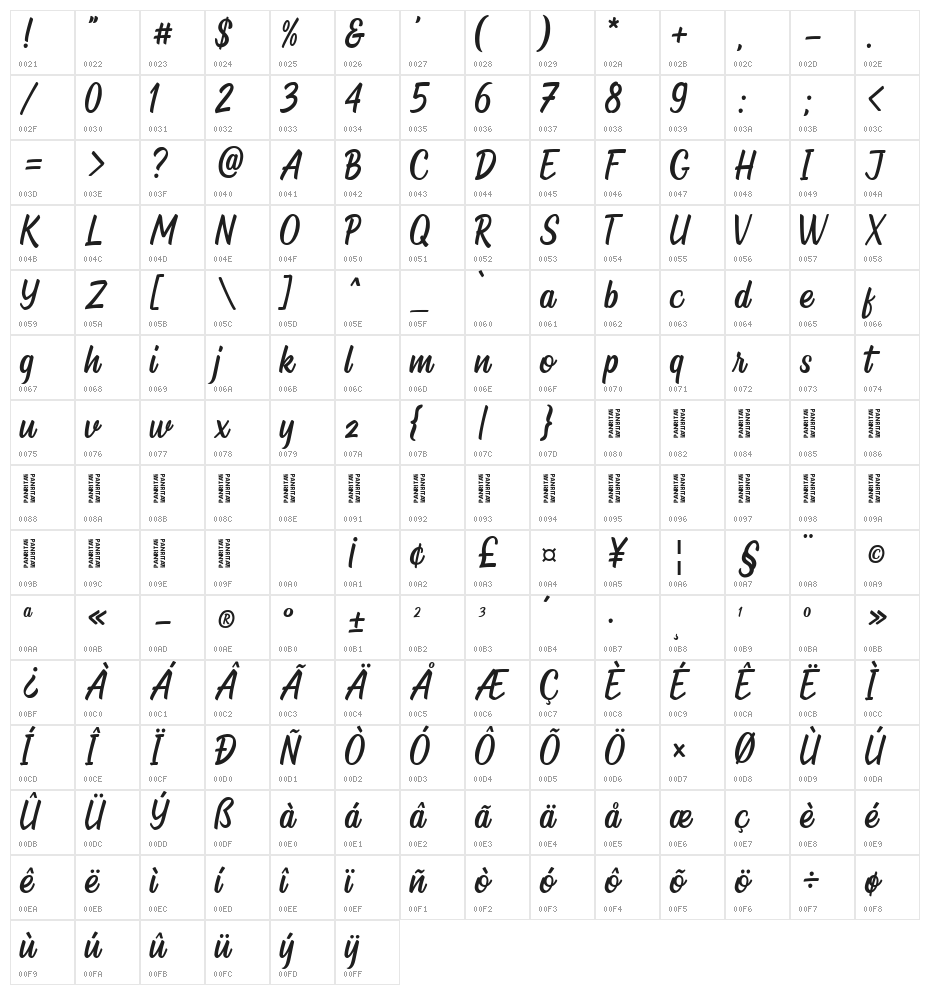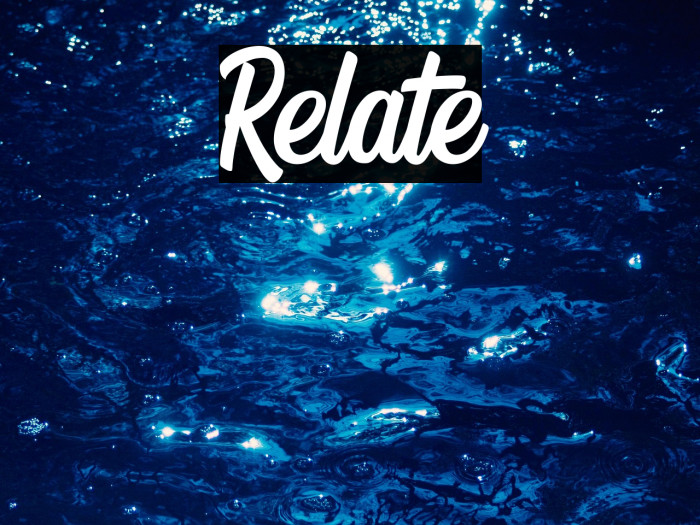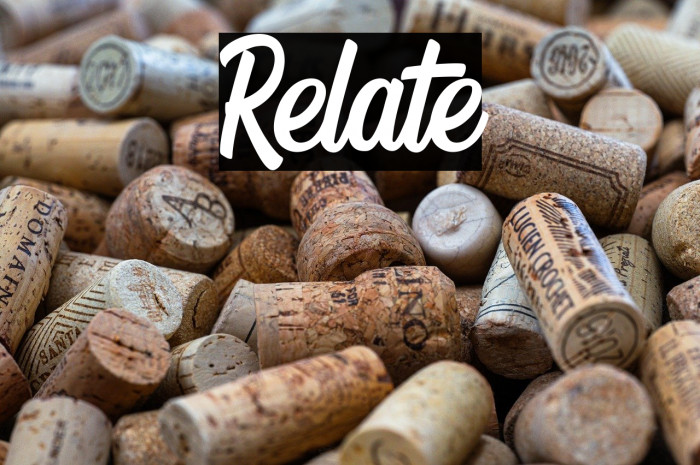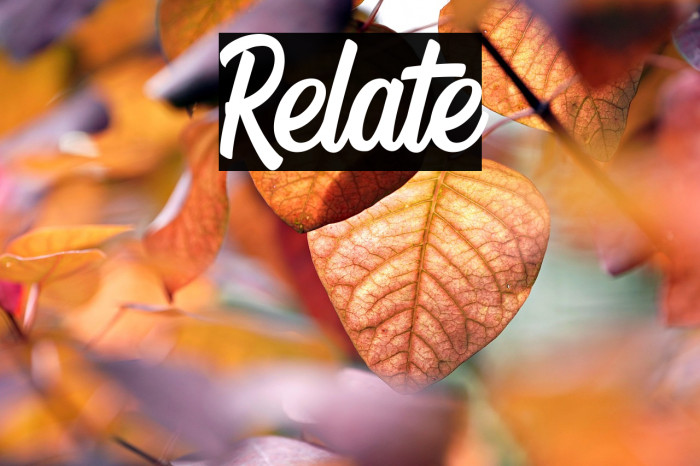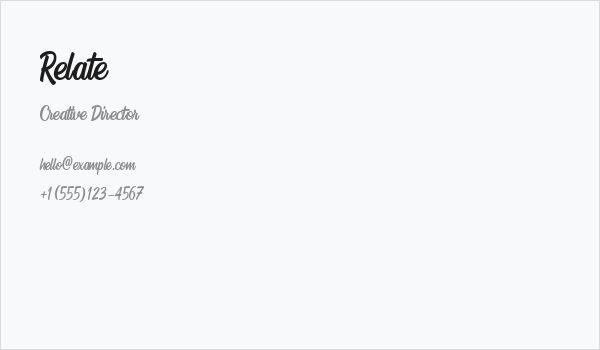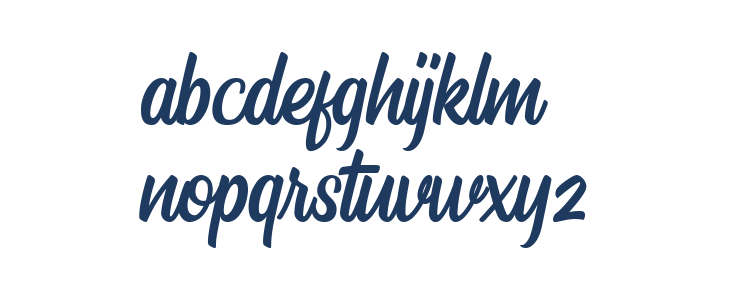
Relate Font
Relate Description
This font exudes a lively and dynamic energy, characterized by its bold, flowing script style. The letters are connected in a seamless manner, giving it a handwritten appearance that is both casual and elegant. The uppercase letters maintain a consistent height, while the lowercase letters exhibit a playful variation in size, adding to the font's charm. The numerals are clear and legible, matching the overall style of the alphabet. Special characters are included, maintaining the same fluidity and boldness. This font is perfect for projects that require a personal touch, such as invitations, greeting cards, or branding materials.
| Proposed Projects | Ideal for invitations, greeting cards, branding, and personal projects. |